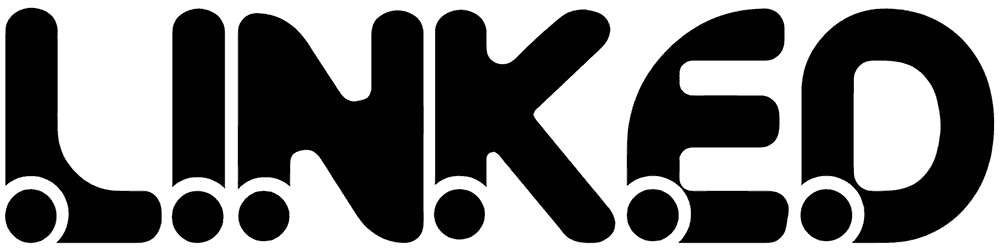
Linked Font
It seems demanding to choose the right font for designing something new, but the reality is quite different. Today, RB is here to place your writing in the growth zone, simply by using a fancy font.
Linked is eager to transform your concept into thrilling artwork. Take a look at its fancy style; it can provide you with more options when designing holiday flyers, posters, cartoons, and comics to spread a festive spirit.